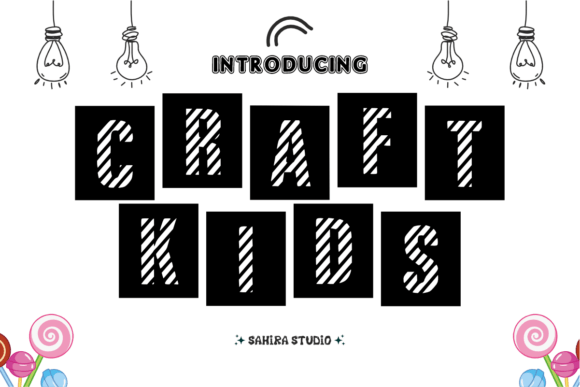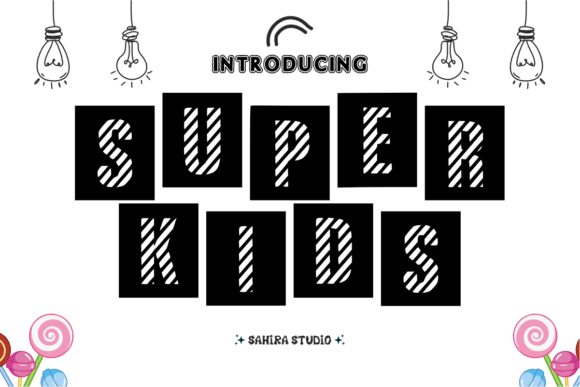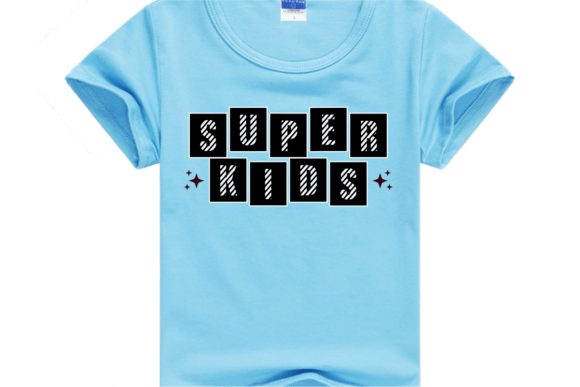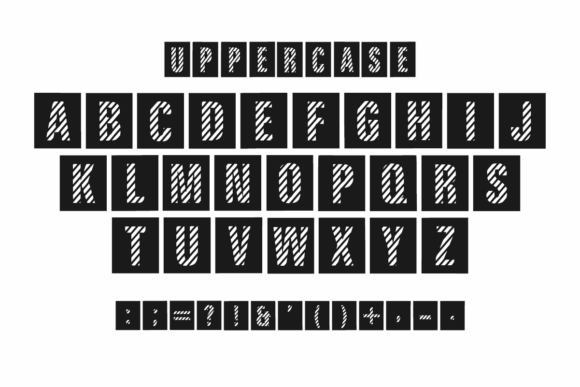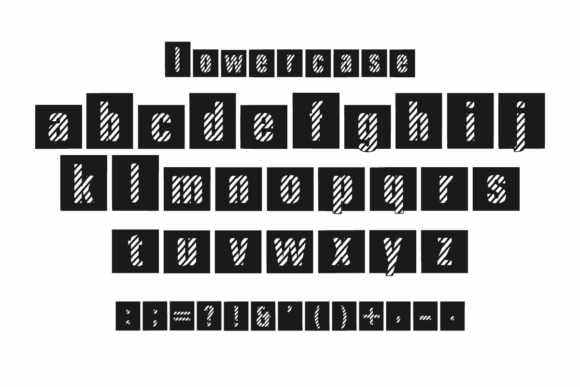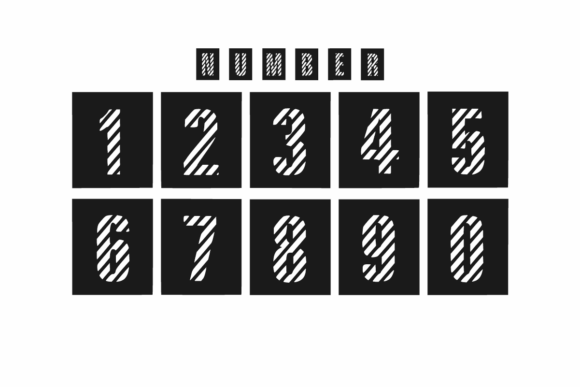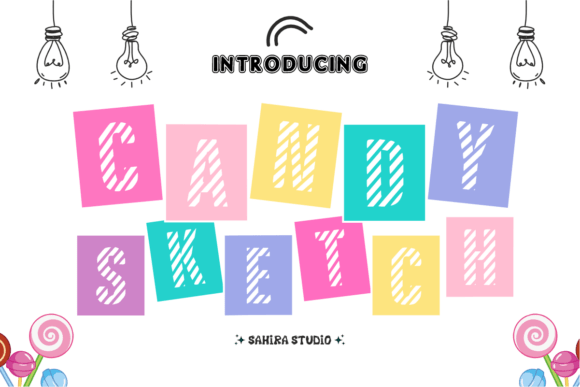
Candy Sketch Font: The Sweetest Addition to Your Design Collection
Are you tired of using the same old fonts in your designs? Look no further! Introducing “Candy Sketch,” a unique and modern cartoon font that’s sure to add a touch of sweetness to your creations. This delightful font consists of only uppercase letters, each one carefully crafted to be cute, unique, and cheerful.
What Makes Candy Sketch Font So Special?
Candy Sketch Font is perfect for designers and crafters who work with children’s products, such as kids’ craft designs, sublimated t-shirts, mugs, tote bags, animations, comic titles, children’s coloring books, and more. The font’s playful and whimsical nature makes it an ideal choice for projects that require a fun and youthful touch.
Each character in the Candy Sketch Font is meticulously designed to be distinct and visually appealing. The font’s modern cartoon style is sure to capture the attention of kids and adults alike, making it perfect for a wide range of applications.
Endless Design Possibilities with Candy Sketch Font
With Candy Sketch Font, the possibilities are endless! You can use it to create:
- Children’s craft designs that are both fun and educational
- Sublimated t-shirts, mugs, and tote bags that make perfect gifts or promotional items
- Animations and comic titles that will captivate your audience
- Children’s coloring books that will inspire creativity and imagination
- Any other project that requires a playful and modern touch
Why Choose Candy Sketch Font?
Here are just a few reasons why Candy Sketch Font is a must-have for designers and crafters:
- Unique and modern design: Candy Sketch Font is a one-of-a-kind font that’s sure to make your designs stand out from the crowd.
- Easy to read and use: The font is clear, legible, and easy to use, making it perfect for a wide range of applications.
- Uppercase letters only: The font’s uppercase letters only design makes it perfect for titles, headings, and other applications where you want to make a statement.
- Perfect for kids’ projects: The font’s playful and whimsical nature makes it an ideal choice for projects that require a fun and youthful touch.
Tips for Using Candy Sketch Font
Here are a few tips for getting the most out of Candy Sketch Font:
- Experiment with colors: The font’s playful nature makes it perfect for experimenting with bright and bold colors.
- Mix and match with other fonts: Try pairing Candy Sketch Font with other fonts to create a unique and visually appealing design.
- Use it for titles and headings: The font’s uppercase letters only design makes it perfect for titles and headings.
In conclusion, Candy Sketch Font is a unique and modern cartoon font that’s perfect for designers and crafters who work with children’s products. Its playful and whimsical nature makes it an ideal choice for a wide range of applications, from kids’ craft designs to sublimated t-shirts and mugs. With its endless design possibilities and easy-to-use design, Candy Sketch Font is a must-have for anyone looking to add a touch of sweetness to their designs.